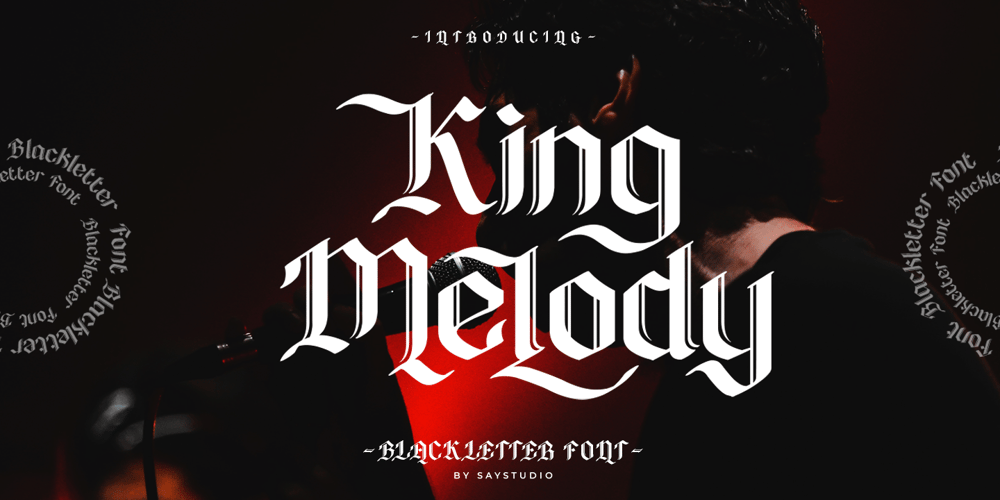
King Melody Font Family was designed by Mussyayin and published by Say Studio. King Melody contains 2 styles and family package options. King Melody is a vintage blackletter font that gives focus on contemporary display type. This vintage-made new typeface is unmistakably blackletter, However, it is accessible enough to be used across many projects, and stylistic alternates to make you design looks more attractives and italic version includedKing Melody Font is ideal for headings , flyers, greeting cards, product packaging, book covers, printed quotes, logotype, apparel design, and album covers, branding, Instagram, print posters, magazines, Fashion, whatever.FEATURES :- Uppercase and Lowercase letters- Numbering and Punctuations- Multilingual Support- Works on PC or Mac- Simple Installation- Support Adobe Illustrator, Adobe Photoshop, Adobe InDesign, also – works on Microsoft WordHope you Like it. Thanks.Say Studio